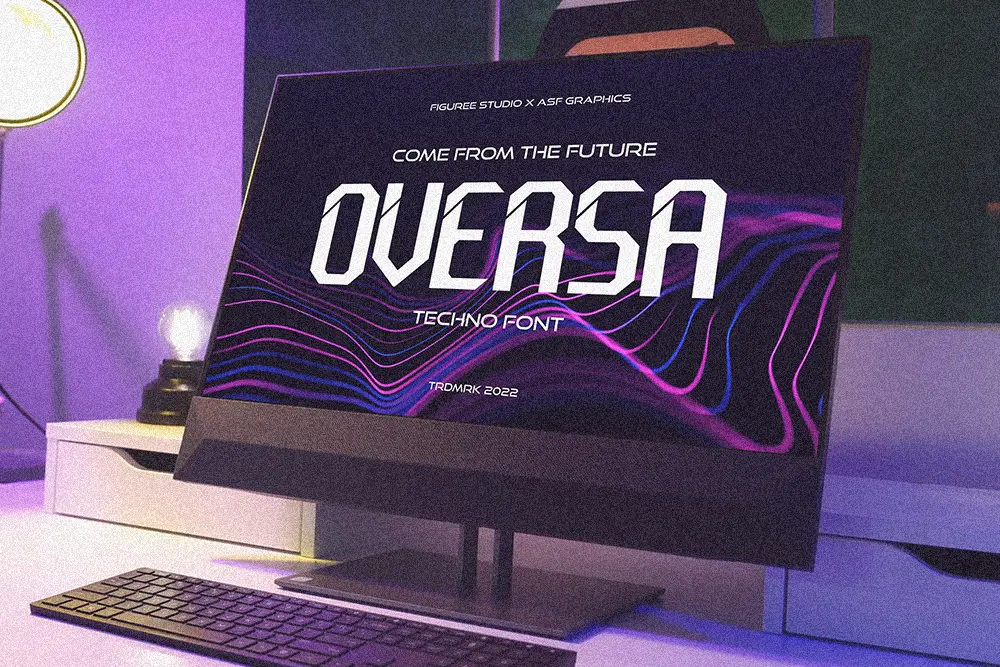
In a noisy digital world, some fonts speak louder than words. Oversa does exactly that. It’s a bold, geometric, and futuristic typeface built to grab attention instantly.
This font was crafted by the Figuree Studio team and designed by Asep Saefulloh. Oversa thrives in futuristic themes—like sci-fi, synthwave, gaming, and tech branding. With angular strokes and strong lines, it feels like it belongs on a spaceship dashboard or a holographic interface.
The idea for Oversa began during an internal jam session. The team explored retro-futurism and modular letterforms. Inspired by digital displays and pixel technology, they used a grid to keep its sharp, techno feel consistent.
Font designer Asep Saefulloh brings more than type skills. He’s deeply passionate about racing-style and futuristic designs. Asep regularly designs Moto Cross livery and custom jerseys. That high-adrenaline, high-precision vibe flows directly into his type work.
“Designing a font is like tuning a motocross bike—it needs both power and control.” — Asep Saefulloh
We tested Oversa in real projects—game UIs, sci-fi posters, and YouTube thumbnails. Every test confirmed the same thing: Oversa stands out fast.
It doesn’t whisper. It launches.
Oversa is a go-to font when your project needs speed, clarity, and bold visuals. It’s perfect for:
If you’re breaking away from the ordinary, Oversa has your back.
Oversa is bold, structured, and energetic. Even when still, it feels like it’s moving. It creates momentum in your design without adding visual noise.
Designers choose Oversa because it captures something rare: the thrill of tech-forward creativity with the control of clean design. From indie devs to YouTube creators, many say Oversa instantly adds edge and clarity to their work.
“The future belongs to those who design it.” — Unknown
Oversa is more than a typeface. It’s a tool for storytelling. It guides the viewer’s eye, builds rhythm, and sets the tone. You’re not just decorating—you’re giving shape to future ideas.